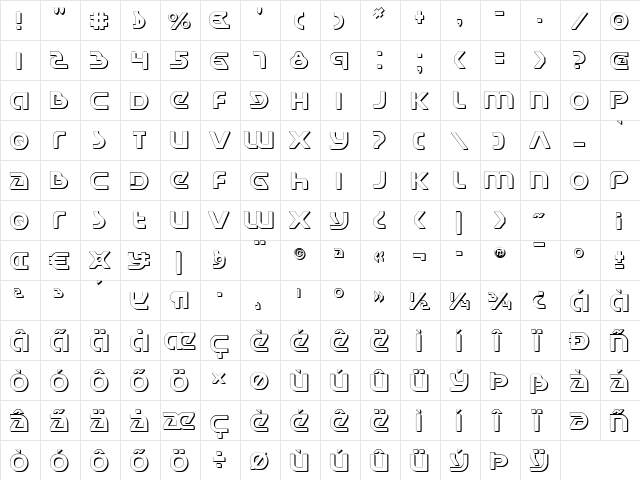
Universal Jack Shadow Shadow Free Font
Universal Jack Shadow Shadow
Style: Shadow
Designer: Dan Zadorozny
Universal Jack Shadow Family
Universal Jack Shadow Shadow
Design Context for Universal Jack Shadow
Universal Jack Shadow is built around its visual character rather than neutral utility - its distinctive forms are designed to make an impression at display sizes.
Font Pairing: Pair with a clean neutral sans-serif for body copy to let Universal Jack Shadow's character lead without overwhelming the composition.
Pro Tip: Use Universal Jack Shadow exclusively at display sizes - it was designed to be seen, not read at length. Let a neutral companion handle body copy.